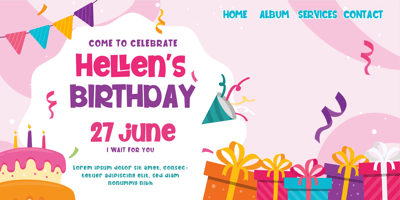
We Are Allstar Free Download
We Are Allstar Font Free Download
We Are Allstar Font is perfect for sports team branding, championship celebrations, athletic achievement materials, victory campaign designs, sports merchandise, competitive event promotions, team spirit marketing, motivational fitness content, championship trophy designs, and inspiring athletic communications. This powerful typeface excels in environments where team unity, athletic excellence, and championship spirit are essential for motivating audiences and celebrating collective achievement.
What makes We Are Allstar Font exciting is its dynamic embodiment of team spirit and collective achievement through bold letterforms that radiate confidence, unity, and the unstoppable energy of championship teams. The font features strong, unified characteristics with team-inspired details that convey solidarity, excellence, and the powerful bond that transforms individual athletes into unstoppable forces. This championship aesthetic makes it ideal for brands seeking to communicate team strength, collective success, and the inspiring power of unified athletic achievement.
We Are Allstar Font family includes Light, Regular, Medium, Bold, Black, Championship, Victory, and Team variants. Each style maintains the font's distinctive team spirit character while offering different levels of athletic intensity and collective expression, enabling designers to create authentic championship compositions that celebrate team unity and athletic excellence across various sporting applications.
The We Are Allstar Font Free Download offers designers access to a premium team-inspired typeface that embodies the spirit of collective athletic achievement and championship excellence. This font's powerful aesthetic and unifying qualities make it particularly valuable for sports organizations, team brands, and athletic companies requiring typography that communicates team strength and championship mentality.
Sports marketing professionals appreciate the font's ability to instantly communicate unity, excellence, and championship spirit. The letterforms' bold characteristics and team-inspired details create motivational connections that individual-focused fonts cannot achieve, making it essential for projects requiring distinctive team personality and collective athletic appeal.
When working with We Are Allstar Font, designers can create compelling visual narratives that resonate with athletes, sports fans, and team-oriented communities. The font's championship character makes it especially effective for brands in team sports, athletic training, competitive events, and motivational fitness where authentic team credibility and championship spirit are crucial for inspiring collective achievement.
For digital applications, We Are Allstar Font maintains its distinctive team qualities across different platforms while ensuring excellent readability in sports interfaces and competitive environments. Its optimized spacing preserves the unified character essential for authentic team spirit appeal.
Athletic marketing agencies consistently select We Are Allstar Font for projects requiring genuine team appeal and championship authenticity, where conventional typography cannot capture the desired unity and collective excellence that defines contemporary team sports culture and championship achievement.